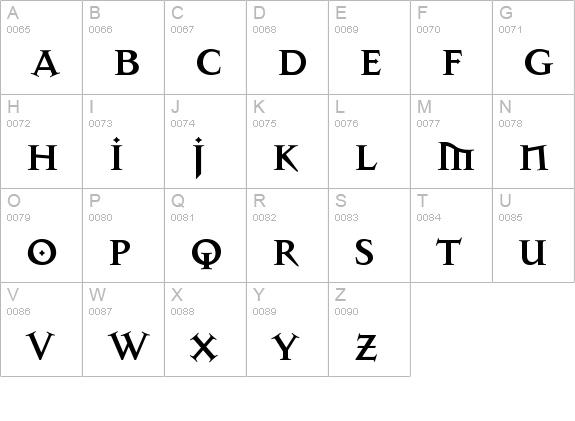
MasonAlternateBold Font Details
Introducing MasonAlternateBold, a versatile and eye-catching font that adds a touch of boldness and uniqueness to any design project. This font exudes confidence and sophistication, making it perfect for headlines, logos, posters, and more. MasonAlternateBold is the epitome of modernity and elegance, with its distinctive letterforms and strong presence. Its bold strokes and clean lines instantly grab attention, ensuring your message is delivered with impact. What sets MasonAlternateBold apart from other fonts is its incredible versatility. It seamlessly adapts to any design concept, whether you're going for a sleek and minimalist look or a bold and daring aesthetic. With its wide range of ligatures and alternate characters, you can easily customize and personalize your designs to make them truly stand out. And the best part? MasonAlternateBold is freely available to download at FontsMarket.com. Yes, that's right, you can access this exceptional font without spending a dime. It's a fantastic opportunity to elevate your design projects without breaking the bank. So why wait? Embrace the power of MasonAlternateBold and take your designs to new heights. Whether you're a professional designer or a creative enthusiast, this font is a must-have in your toolkit. Download MasonAlternateBold today and discover the endless possibilities it holds for your next project.